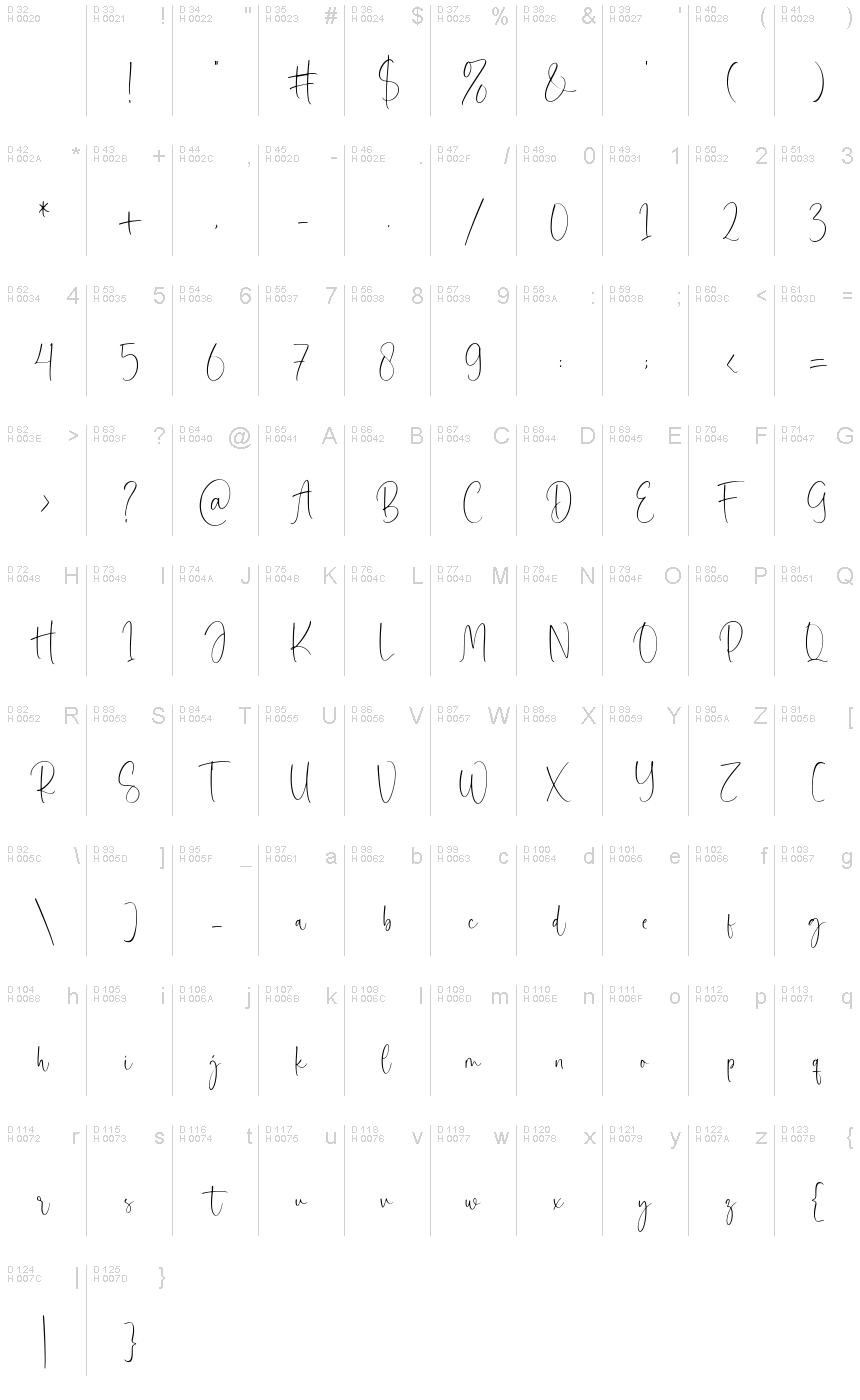
Wildstar
Wildstar font was created by Letterative Studio. Wildstar is a handwritten font with a light weight and high contrast that captures attention in an instant. This handwritten font exudes a unique blend of elegance and playfulness with its elegant curves, long loops, casual feel, flowing script, calligraphic style and fluid strokes.
This font is made for various projects like logos, branding projects, homeware designs, product packaging or simply as a stylish text overlay to any background image or labels. Perfect for quotes such as inspirational material, saying art illustrations and event invitations (weddings and birthdays), book titles / covers & editorial fonts; this writing piece will not disappoint!